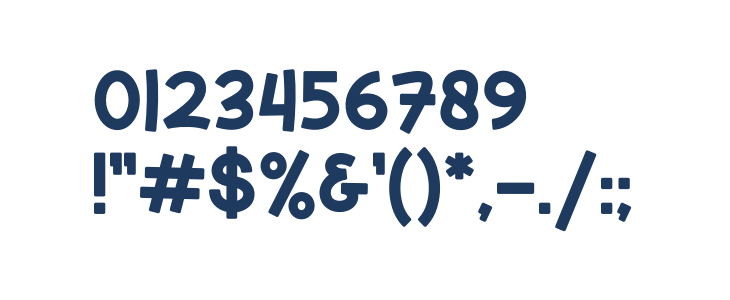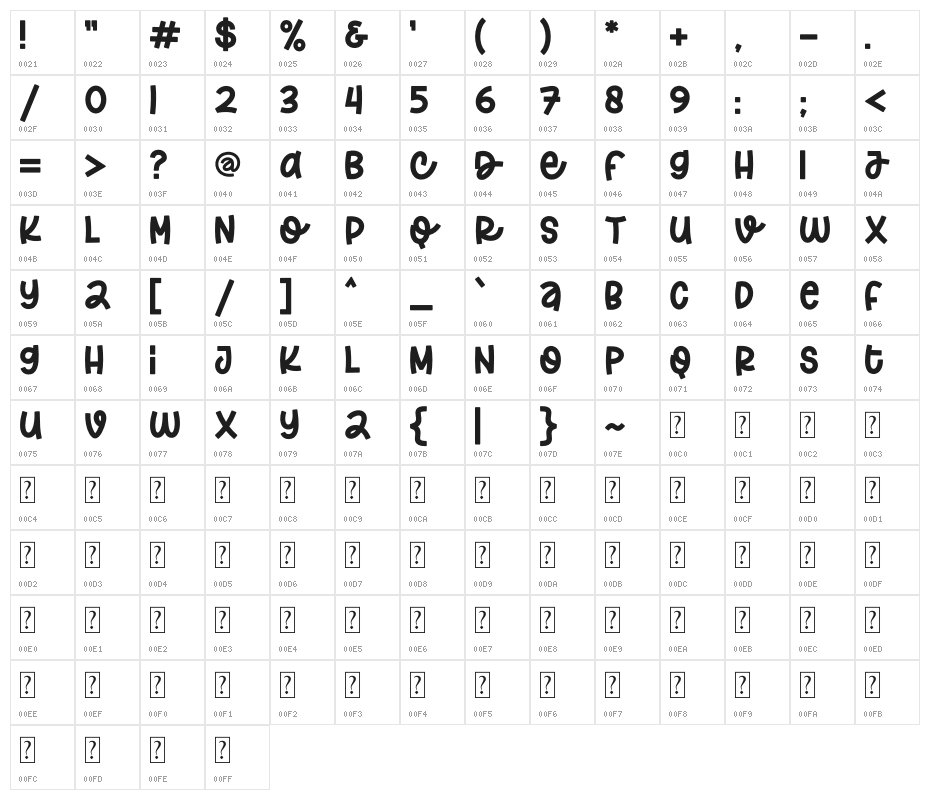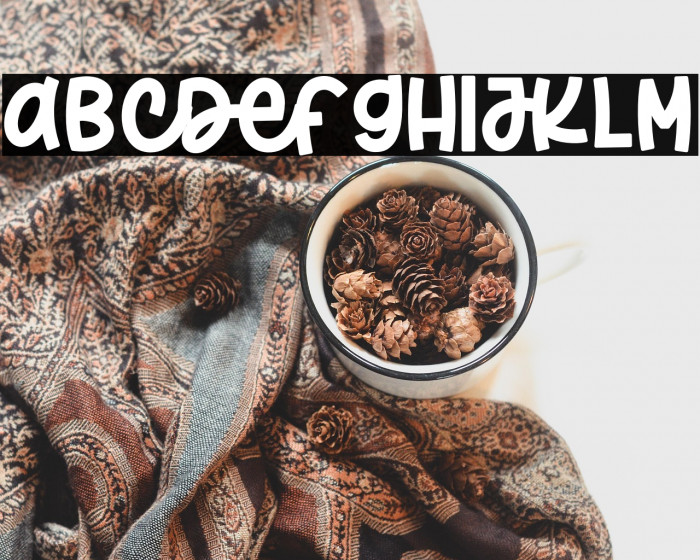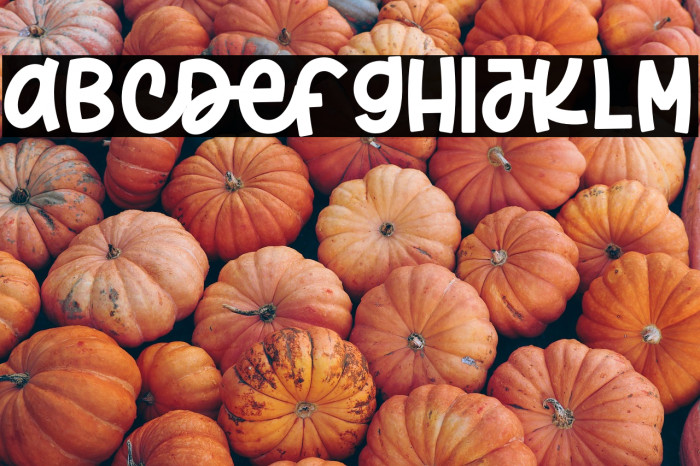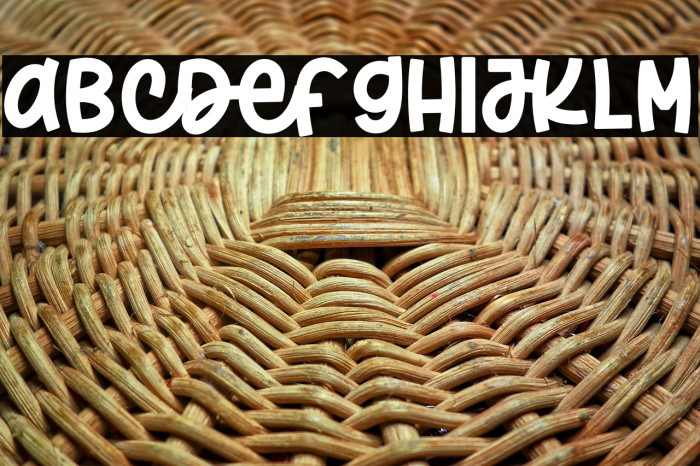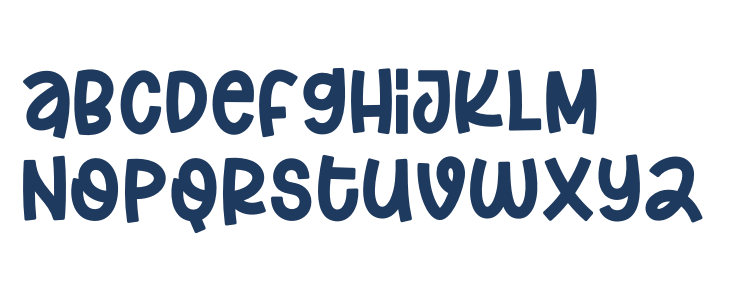
Jasmine Bloom Font
Jasmine Bloom Description
This font features a playful and bold style with a handwritten aesthetic. The characters are rounded and slightly irregular, giving them a whimsical and friendly appearance. The uppercase and lowercase letters maintain a consistent thickness, contributing to a cohesive look. The numbers and special characters follow the same design principles, ensuring uniformity across all glyphs. This font's unique style makes it suitable for creative projects that require a touch of personality and flair.
Overall StylePlayful
Proposed ProjectsIdeal for children's books, greeting cards, playful branding, and social media graphics.